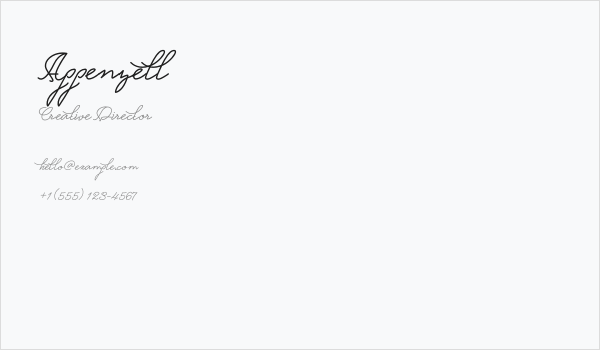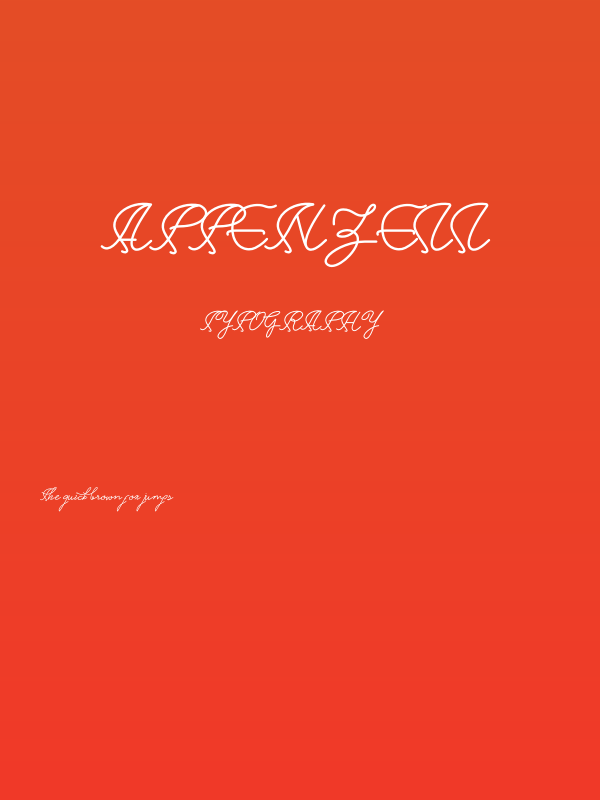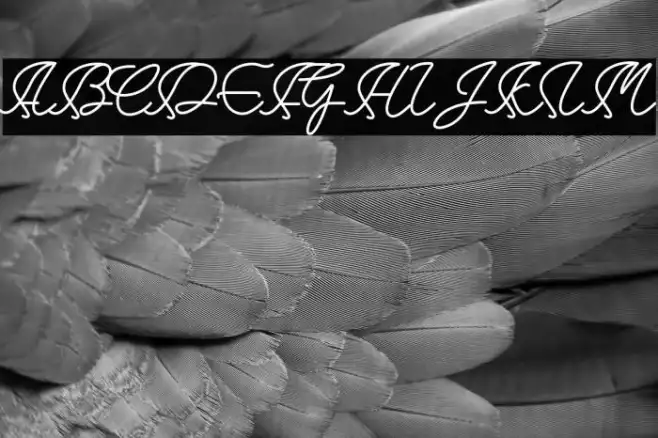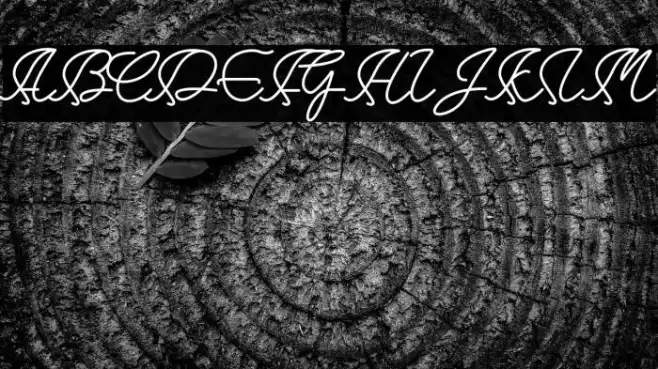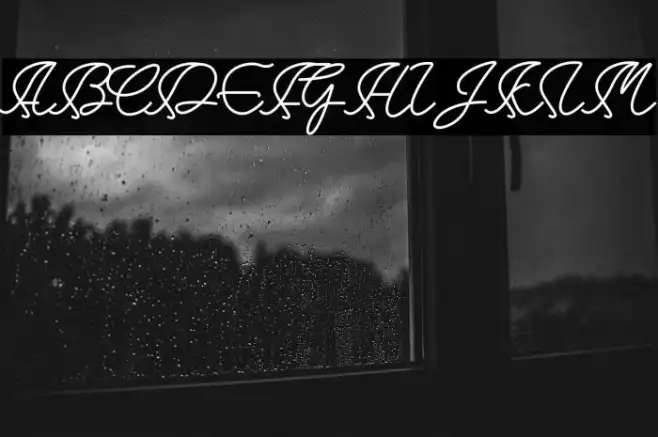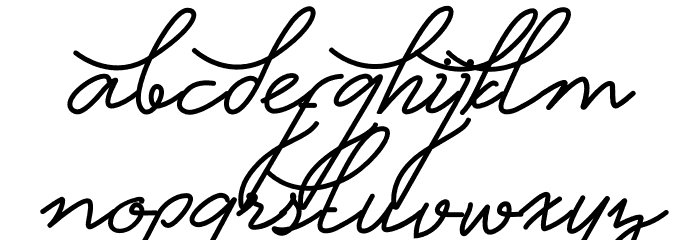
Appenzell Font
Appenzell Description
This font exhibits a flowing, cursive style with elegant loops and swashes, reminiscent of traditional calligraphy. The uppercase letters are ornate, with intricate connections between strokes, while the lowercase letters maintain a consistent, fluid motion. The numerals are designed to complement the script style, featuring rounded edges and smooth curves. Special characters are integrated seamlessly, maintaining the overall aesthetic. The font's design is both sophisticated and expressive, suitable for projects that require a touch of elegance and personal flair.